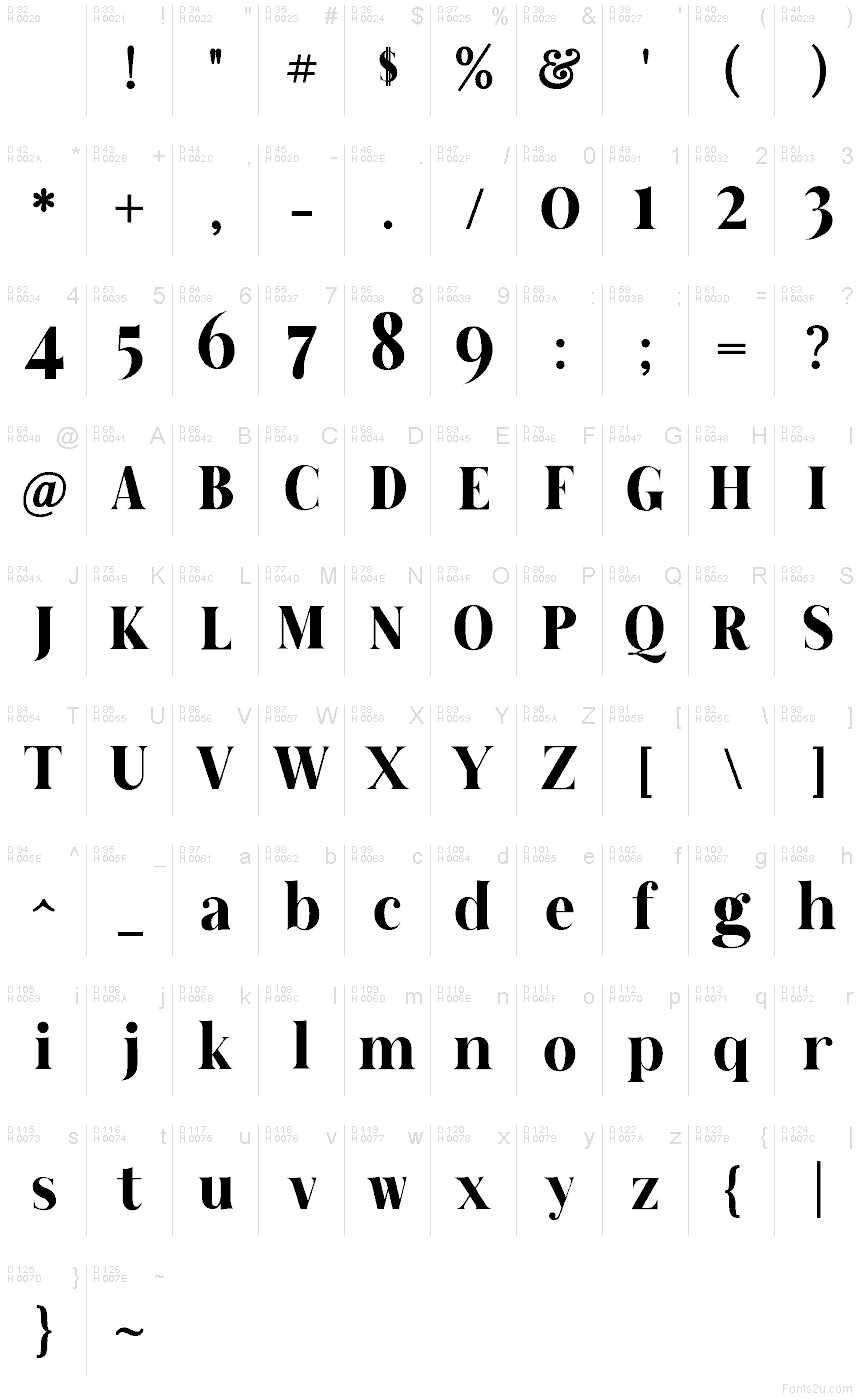
Moving
Moving font by Graphicxell is a free bold high‑contrast serif font. It stands out with glossy, inky slabs that drop into razor‑thin hairlines, and a cheeky ball terminal that gives the forms a sculpted, editorial snap. The rhythm feels luxe and deliberate—thick strokes anchor the page while crisp serifs slice the white space—so headlines read with authority without feeling stiff.
Using Moving, you can shape fashion editorials, beauty packaging, magazine covers, luxury branding, event posters, and statement invitations that need drama with polish. The generous contrast holds up at large sizes, and the compact spacing keeps words tight and impactful. Pair this free font with a clean grotesk sans for copy, and let Moving take the hero role.